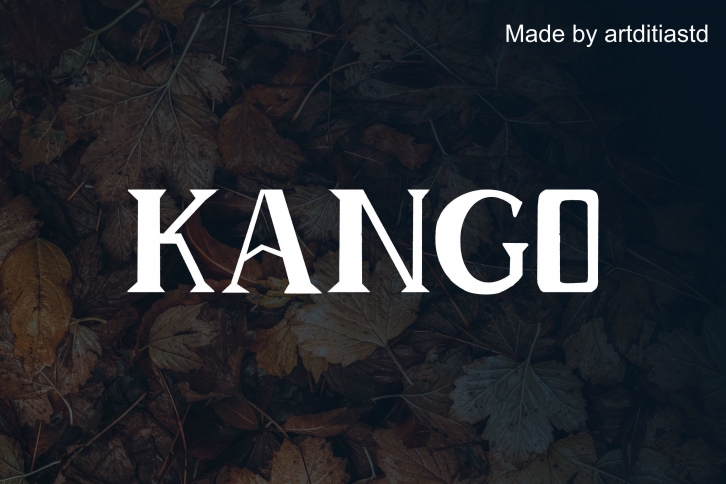
Kango is a bold and authentic display font suitable for any branding project like logos, t-shirts, posters and many more. It looks modern and outstanding in a wide range of contexts.